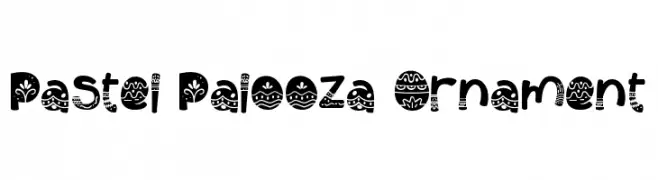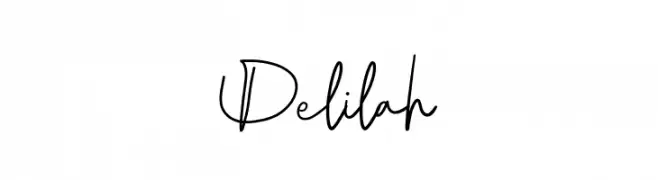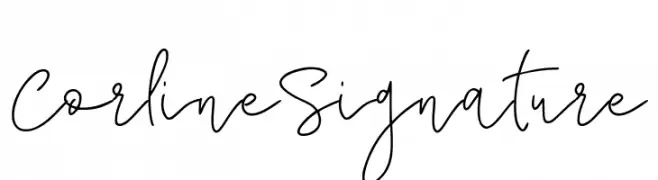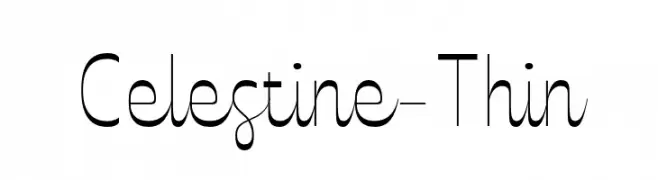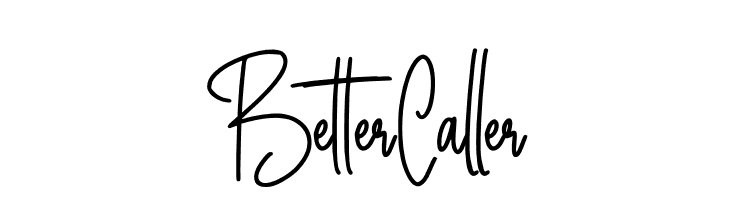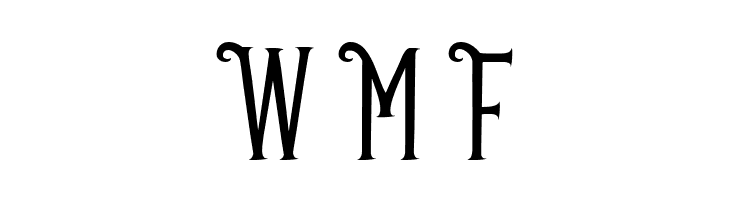
A bold, expressive script font with fluid, interconnected strokes.
A futuristic, italic font with bold, angular lines and a dynamic style.
A playful, ornamented font with intricate patterns and festive motifs.
A decorative and elegant script font with flowing, intricate letterforms.
A bold, italic script font with a dynamic, handwritten style.
A flowing, cursive script font with elegant loops and swashes.
A lively, cursive font with a handwritten touch and elegant flow.
A playful, bold font with rounded, bubbly characters.
A flowing, cursive font with an elegant, handwritten style.
A sleek, modern font with thin lines and elegant curves.